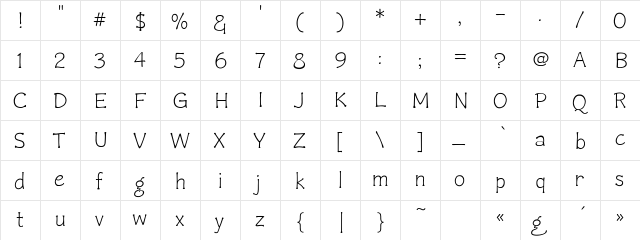
Czaristane Demo Regular
Design Context for Czaristane Demo Typeface
Czaristane Demo is a composed and adaptable typeface that performs quietly and consistently across a wide range of design contexts.